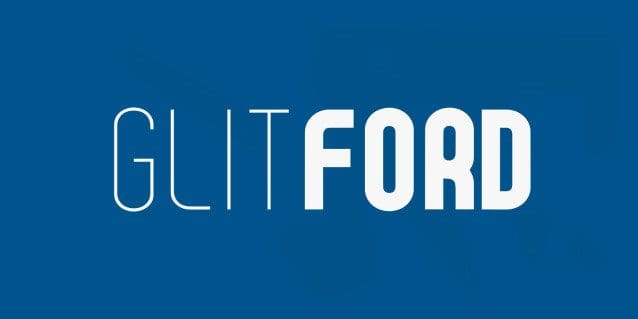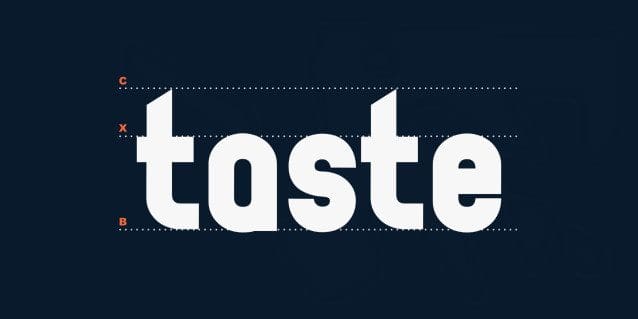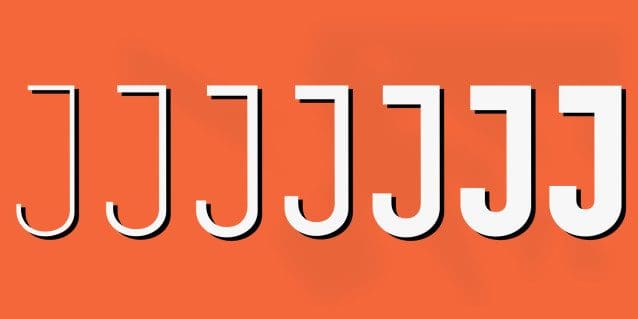
Glitford Font Family
Glitford Font Family is a family of 7 fonts inspired by the Oval Curvy design. Available weights are light, regular, medium, bold and black. The font broadens its use by supplying weights all the way from Thin to Black. Glitford’s unique shapes provides for plenty of design options and is suitable for posters, headlines and logotypes.
Designers: Glen Nyundu
Publisher: RainBomb Studio